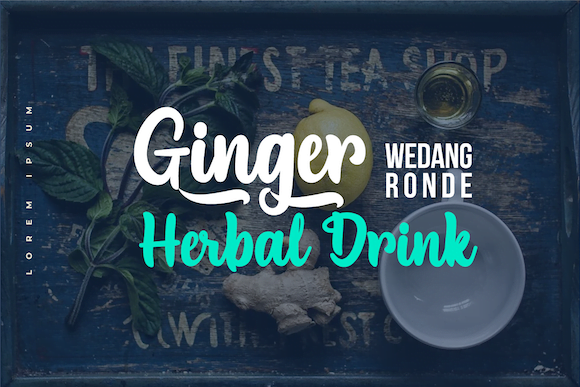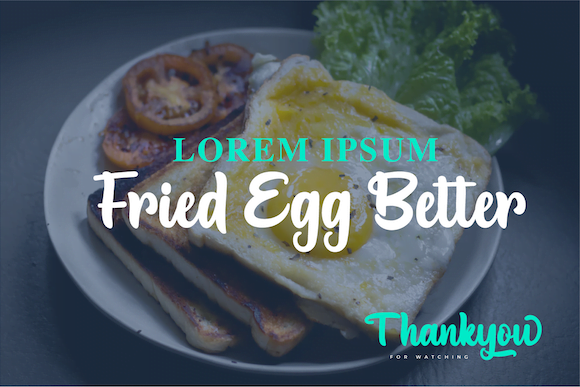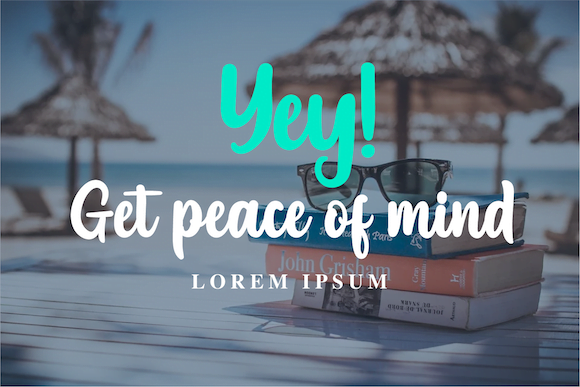
- Seatyio – Handwritten Script Font
Seatyio is a beautifully crafted Handwritten Script Font that brings a touch of elegance and personal charm to any project. Its smooth, flowing strokes capture the essence of handwritten notes, making it perfect for invitations, greeting cards, personal branding, and social media posts. The natural curves and delicate flourishes of Seatyio give it a sophisticated yet friendly vibe, ideal for adding a personal, heartfelt touch to your designs.
Whether you’re designing wedding stationery, crafting a logo, or creating quote graphics, Seatyio’s stylish and organic look adds warmth and individuality. This versatile script font works seamlessly across both print and digital media, making it a favorite for projects that need a personal, human touch.